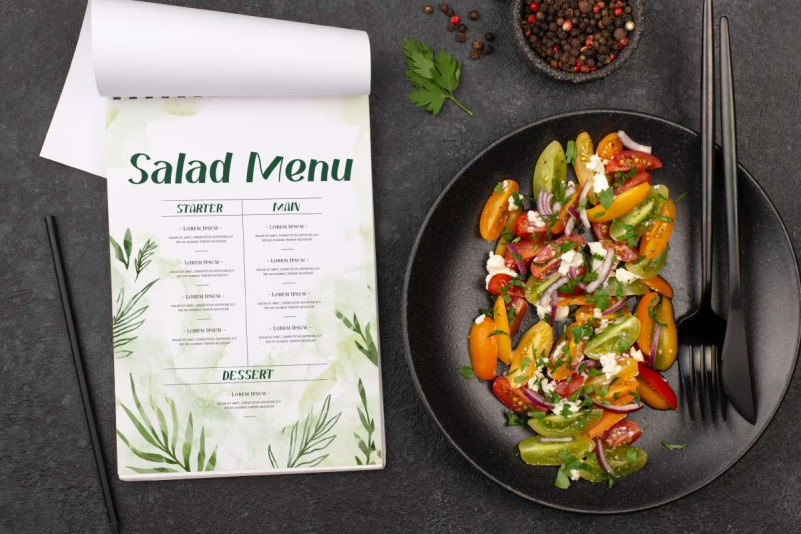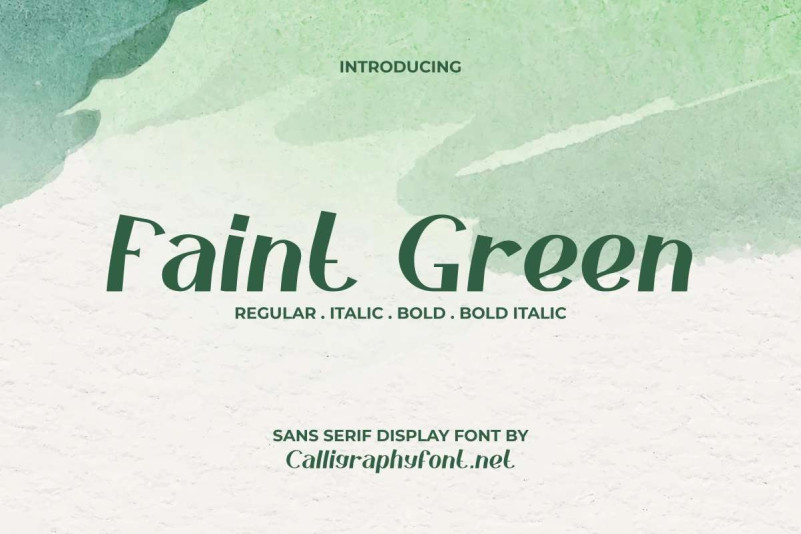
Faint Green Font
Faint Green Font is a unique unusual display font packed in four different styles: Regular, Italic, Bold, and Bold Italic. This font family gives a new feel to sans serif, besides having a fresh and stylish look, it is dominated by a bold emphasis on the lettering so it is flexible for any industry, such as author, café, culinary, environmental, furniture, handicraft, healthy food, jewelry, photography, pottery, printing, publishing, restaurant, skincare, writer, and much more.
Faint Green Font is a great choice to make it the main text (primary text) or paired with another type of font (secondary text). It will be ready to accompany you in any project, such as billboard, body text, brand logo, brochure, catalog, header, mockup, menu, packaging design, poster, product label, screen print, signage, stationery, watermark, website, etc.